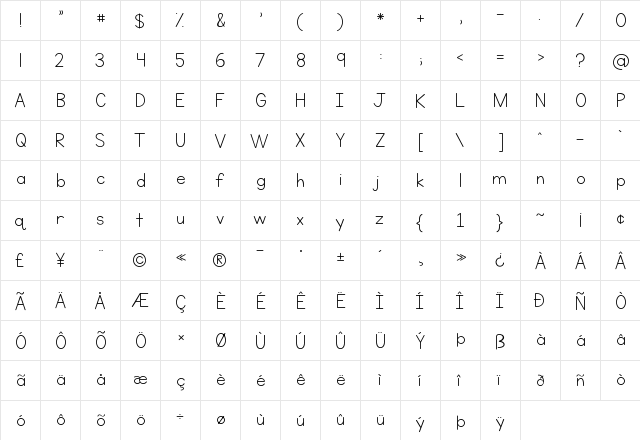
KG Neatly Printed Regular
| Foundry | Kimberly Geswein |
| Designer | Kimberly Geswein |
Design Context for KG Neatly Printed Typeface
KG Neatly Printed offers clean, dependable letterforms without strong stylistic allegiance, making it a practical choice for designers who need flexibility.